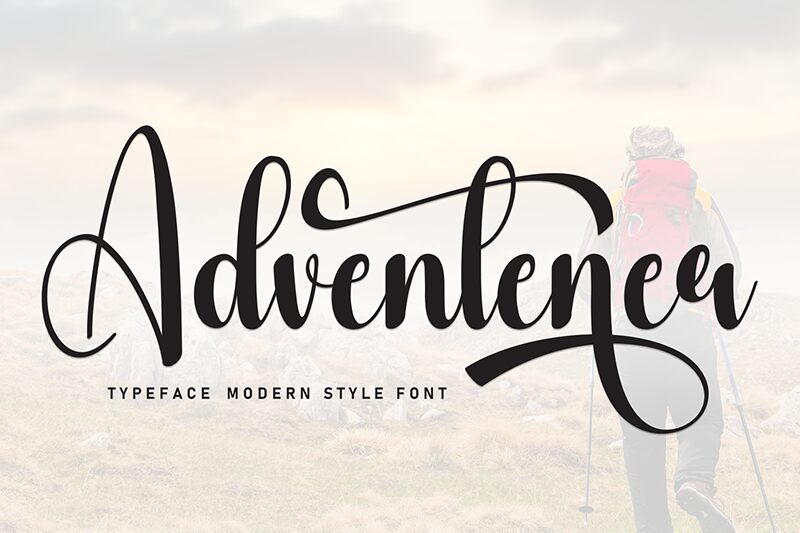
Adventener font by scratchones is a free-to-download script font with a smooth and professional curvy design. Its letters are so similar to the cursive letters of old times and have a freshly finished visual aspect. The curved alignment of the words written in this font connects the individual letters in a seamless manner to form a fun and stylish word mark.
Your use cases can be anything from branding, posters, and magazine designs to packaging, social media, web design, and more. But pay attention to its readability in small sizes before using it for headlines. Try it in your next project and achieve stunning results effortlessly.